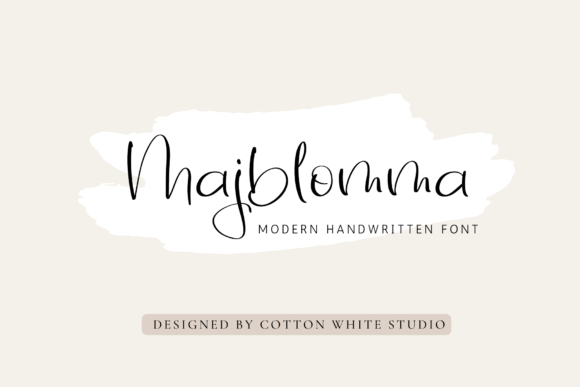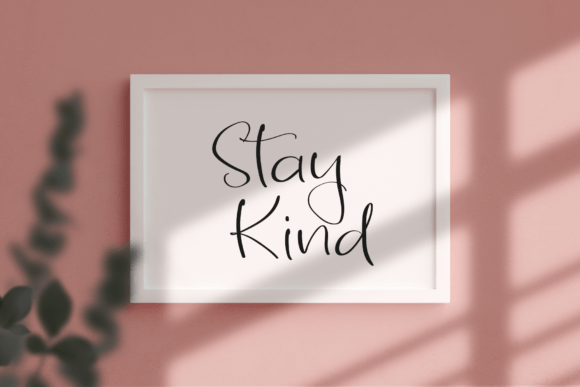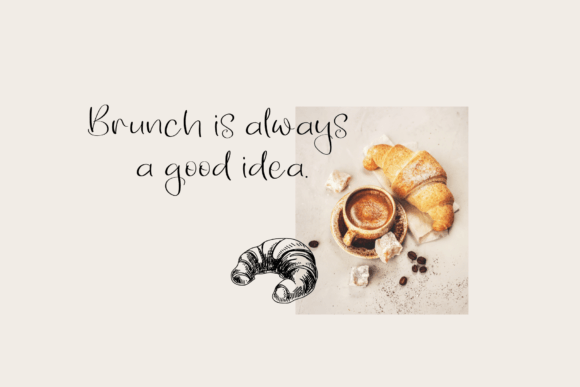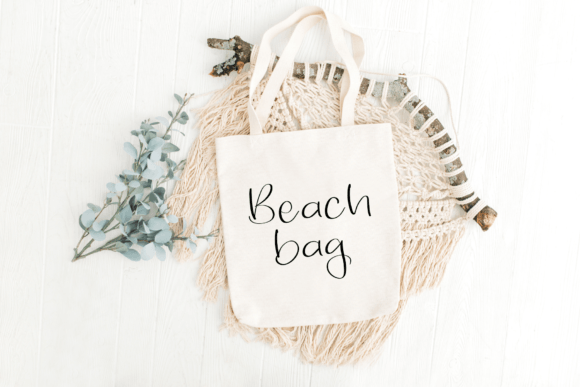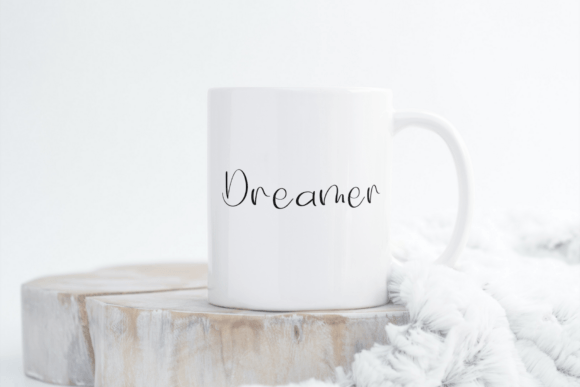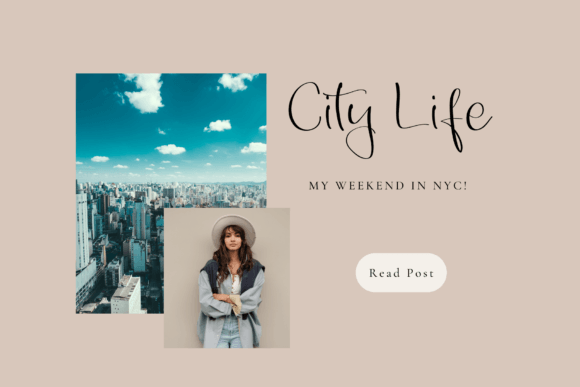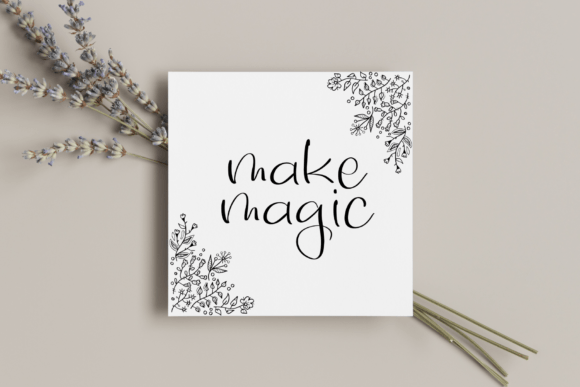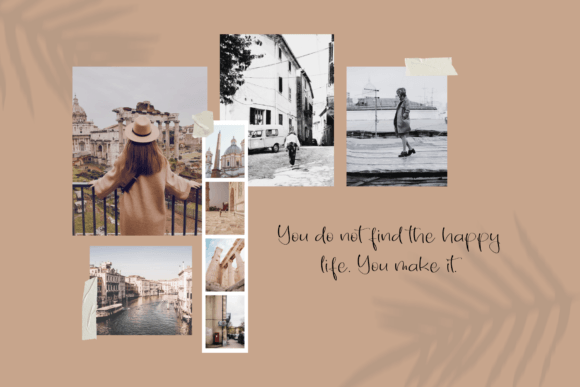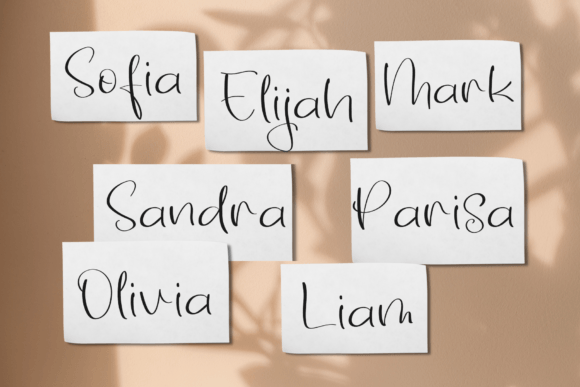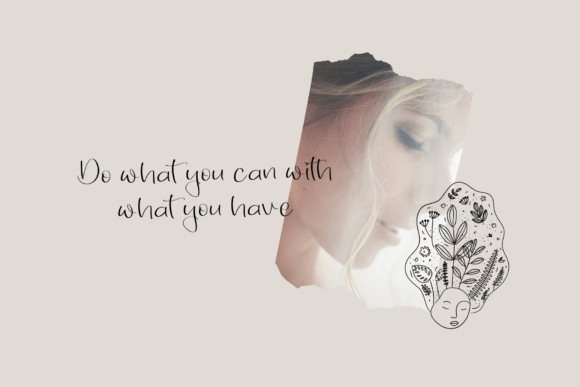
Majblomma Font
About Majblomma Font
“Majblomma” is a captivating handwritten font, meticulously crafted to capture hearts as a beloved choice. It gracefully retains its classic calligraphic essence while exuding a modern and invigorating charm. Let yourself be enchanted by it and witness your projects reaching their pinnacle!
The “Majblomma” font is a true gem in the realm of typography. Its strokes flow gracefully, paying homage to the timeless art of calligraphy, while also embracing a contemporary and vibrant spirit. This font is not just a tool but a source of inspiration to elevate your creative endeavors.
One of the font’s standout features is its enduring appeal. Each character carries an air of sophistication and elegance, making it a perfect fit for a wide array of applications.
The “Majblomma” font possesses an alluring fusion of traditional and modern elements. Its classic calligraphic roots make it perfect for formal invitations, elegant wedding stationery, and refined branding. Simultaneously, its fresh and contemporary twist ensures it adapts seamlessly to the digital age, making it a versatile choice for social media, blogs, and websites.
This font also excels at conveying a sense of authenticity. Its handwritten aesthetic adds a personal touch to your projects, making them feel genuine and relatable. It’s like having an expert calligrapher at your service, ready to infuse your work with elegance and style.
What sets “Majblomma” apart is its ability to transform ordinary words into works of art. When you employ this font, your content takes on a new level of sophistication and refinement. It’s an ideal choice for luxury brands, high-end events, and any project where a touch of class is essential.
Additionally, “Majblomma” isn’t just about style; it’s about substance too. It carries a timeless quality that transcends trends. This font can convey messages of grace, beauty, and elegance with ease. Whether you’re creating wedding invitations, restaurant menus, or fashion catalogs, “Majblomma” ensures your message is delivered with finesse.
Whether you’re a professional designer or someone with a creative vision, “Majblomma” is a valuable asset. It effortlessly combines the charm of handwritten calligraphy with the sophistication of modern design, making it a versatile and indispensable choice.
In summary, “Majblomma” isn’t just a font; it’s a creative ally that elevates your projects to new heights. With its timeless elegance and contemporary allure, it’s the perfect choice for those seeking to add a touch of class and sophistication to their work. Embrace the enchanting world of “Majblomma,” and watch your creativity flourish.